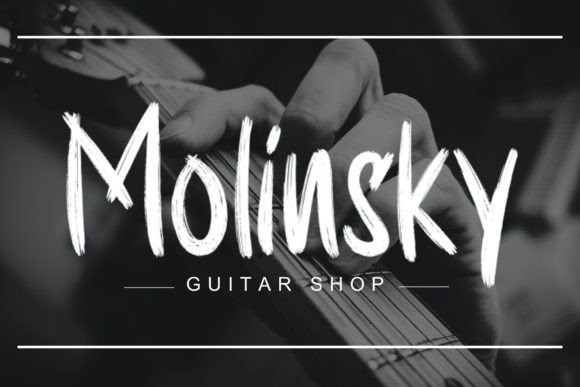
Wishtime Font
Wishtime Font by Sakha Design 19,858 downloads
Wishtime Font
Wishtime Font, Use it for all of your hand-lettering projects like invitations, greeting cards, promotional materials, websites, and branding that need that hand-brushed lettering vibe.